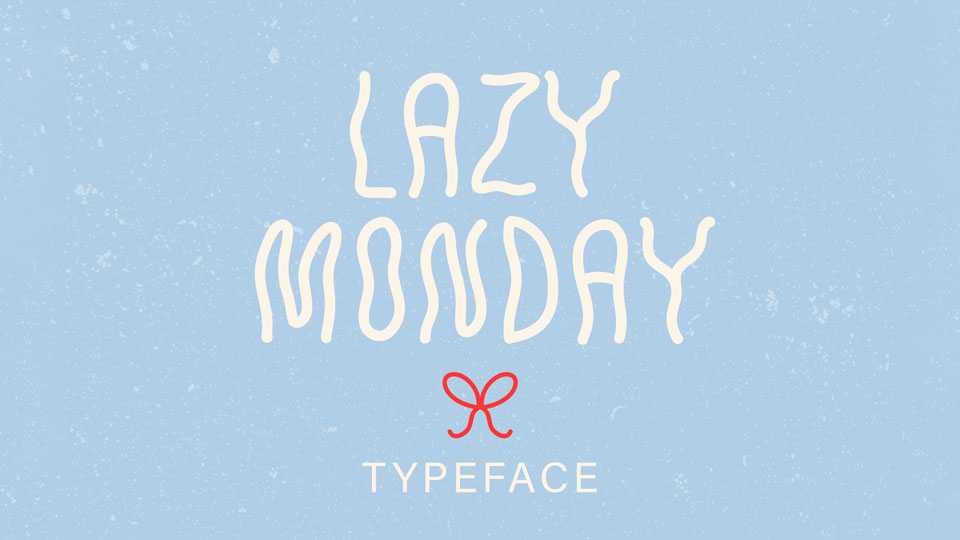
Download Lazy Monday font, a fun and laid-back typeface, perfect for adding a touch of playfulness to your designs. Its wobbly, bouncy shapes dance along the baseline.